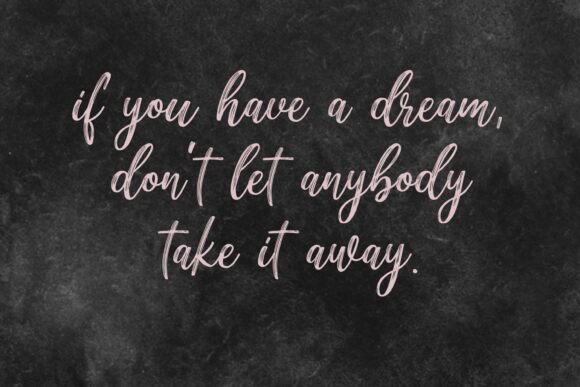
Riochi, a stunning semi-light brush font designed by Letterflow, exudes an artistic flare perfect for any creative project. Its semi-condensed width allows for space-saving design while maintaining legibility and style. Riochi's hand-drawn brush strokes give your work a personal touch that sets it apart from the rest. This versatile font is ideal for logo design, social media graphics, invitations, and more. Whether you're creating a whimsical children's book or an elegant wedding invitation, Riochi will elevate your project to the next level with its unique character and charm.
Riochi